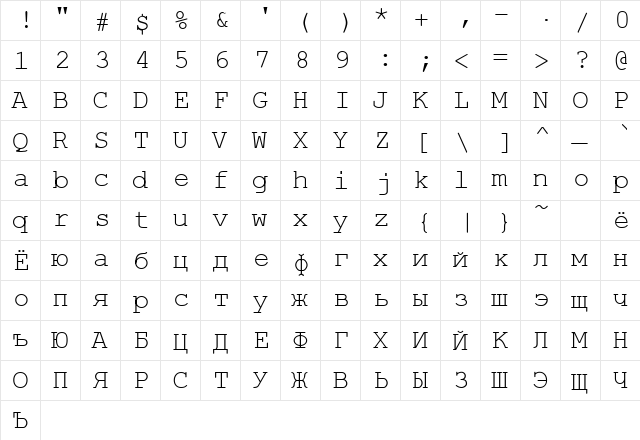
K8 Kurier Regular
Design Context for K8 Kurier Typeface
K8 Kurier is a composed and adaptable typeface that performs quietly and consistently across a wide range of design contexts.